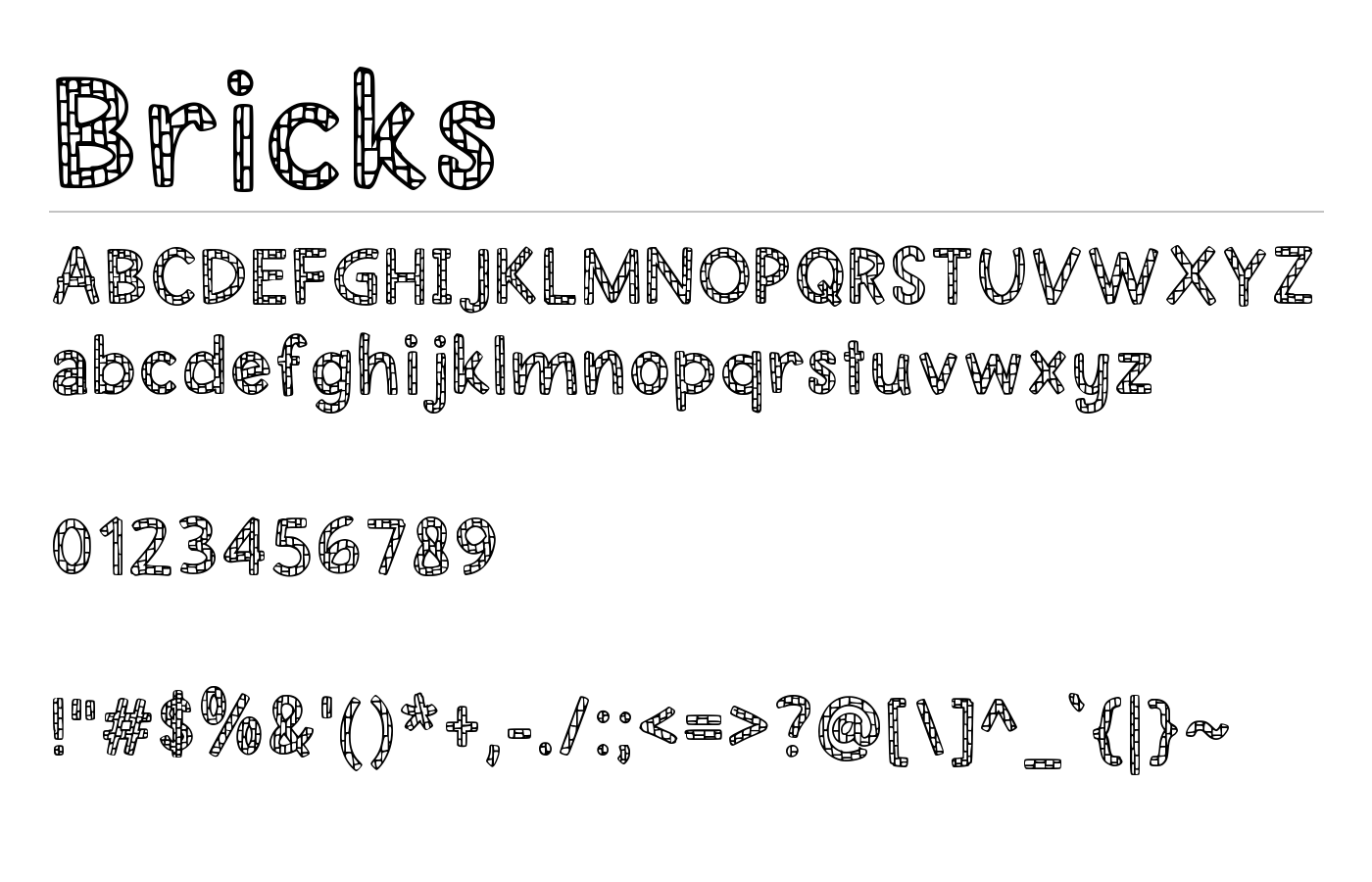
Bricks Font is a playful and decorative sans serif typeface designed with a unique brick pattern texture inside each character, giving it a handcrafted, artistic feel. Its rounded, consistent strokes and open letterforms make it approachable and fun, perfect for creative projects, children’s materials, and casual branding that wants to convey personality and warmth. This font works especially well in headlines, posters, and logos where a distinctive, eye-catching style is needed.
Bricks Font
About Bricks Font
| Font family | Bricks Font |
| Designer | Nur Aisyah Amalia |